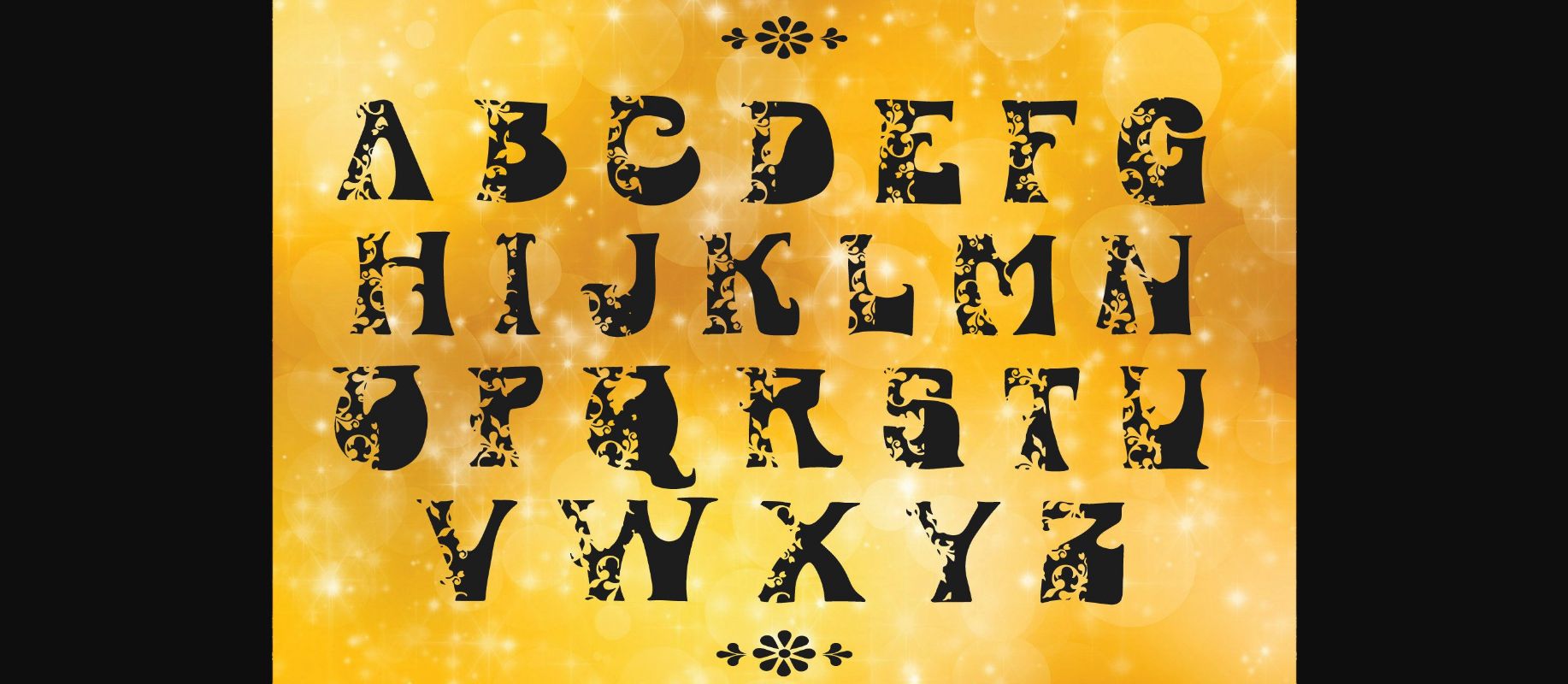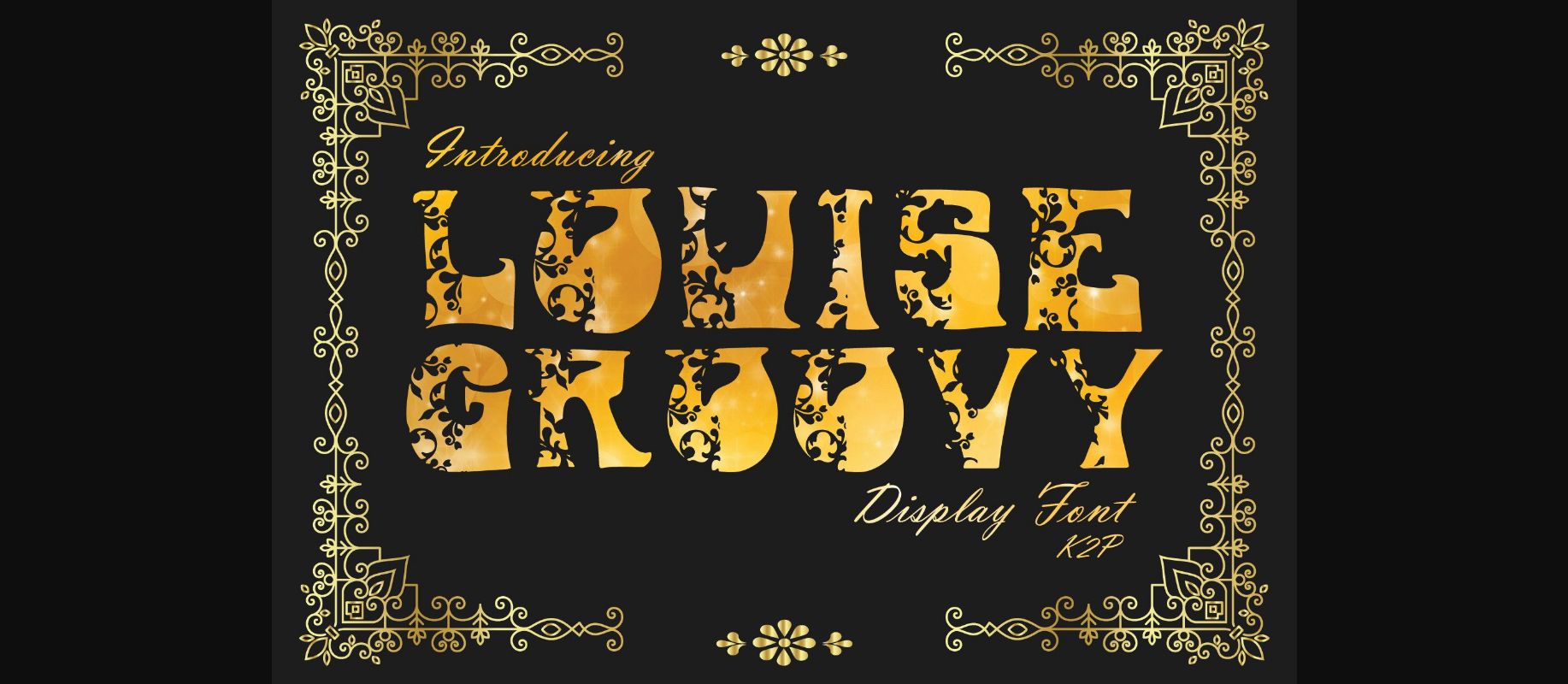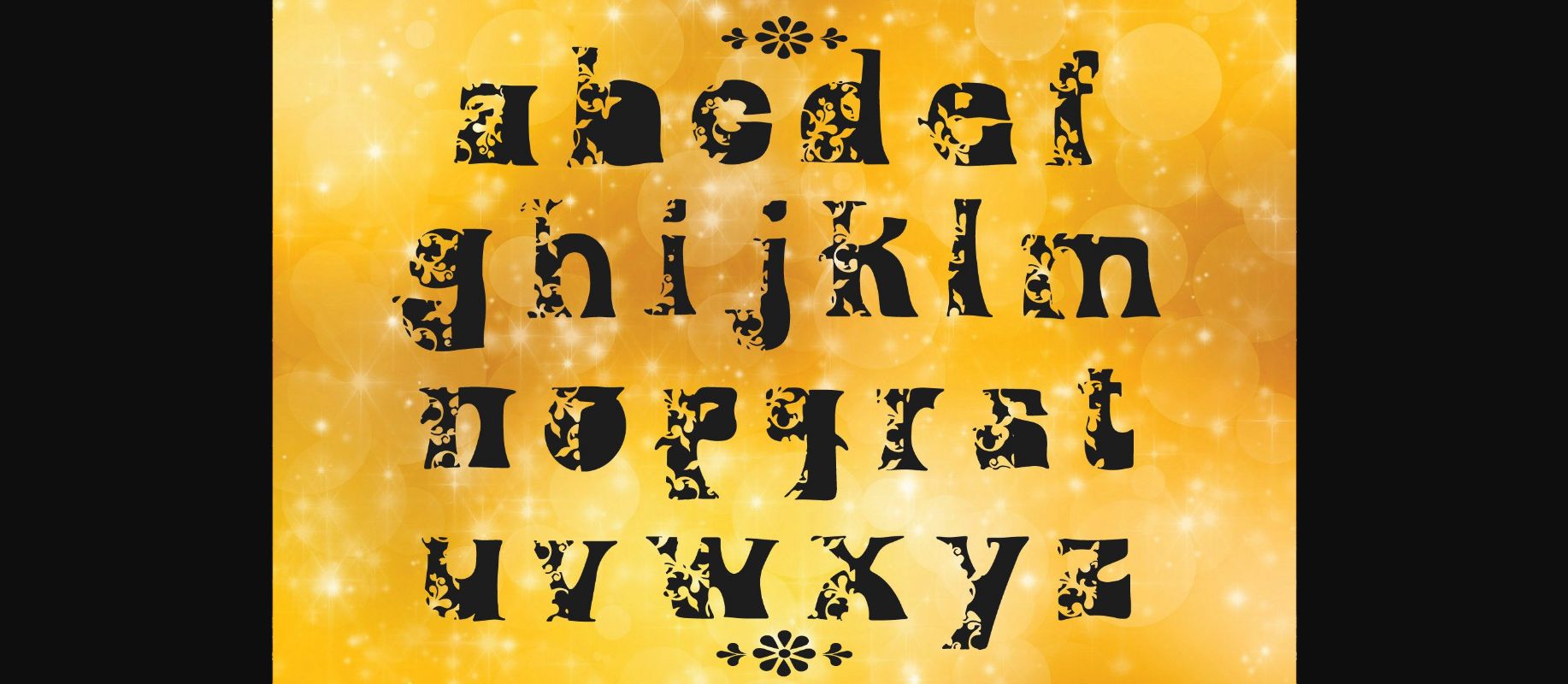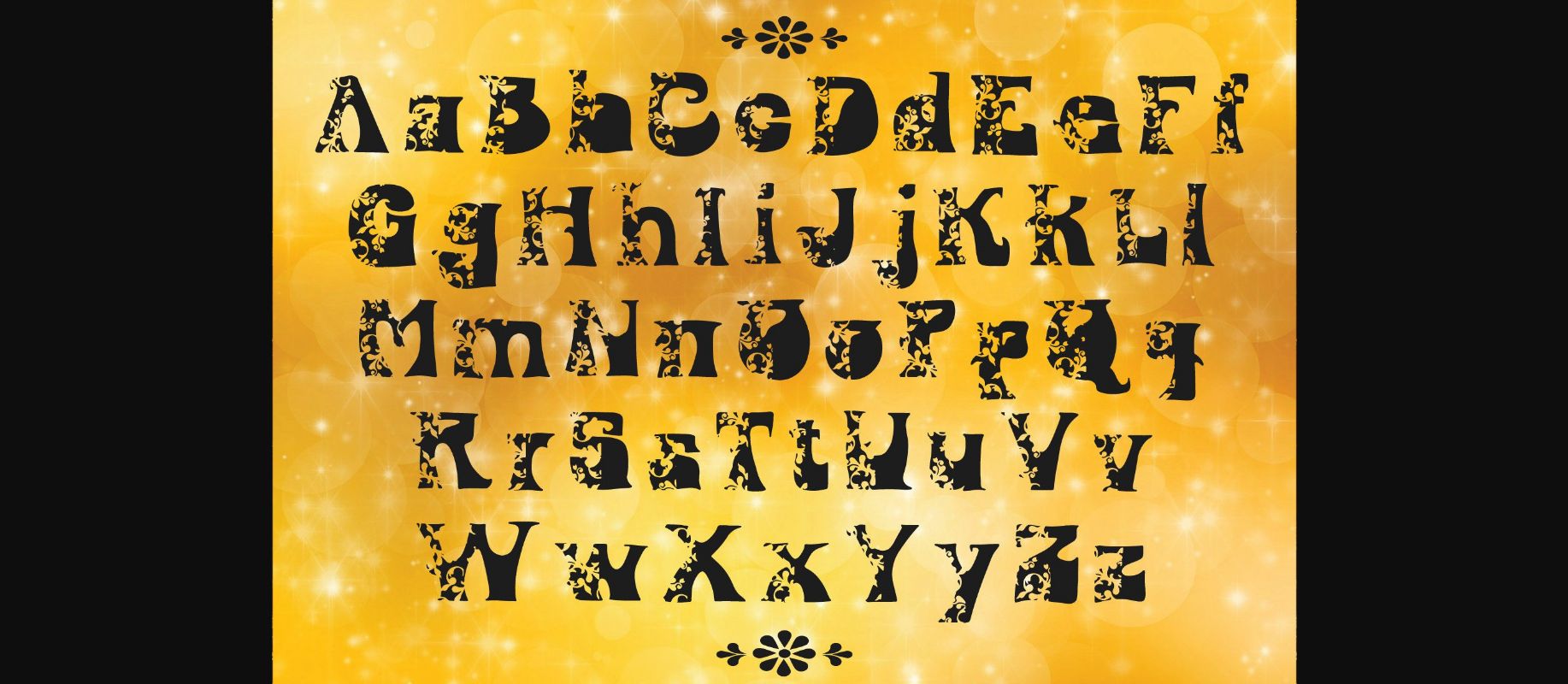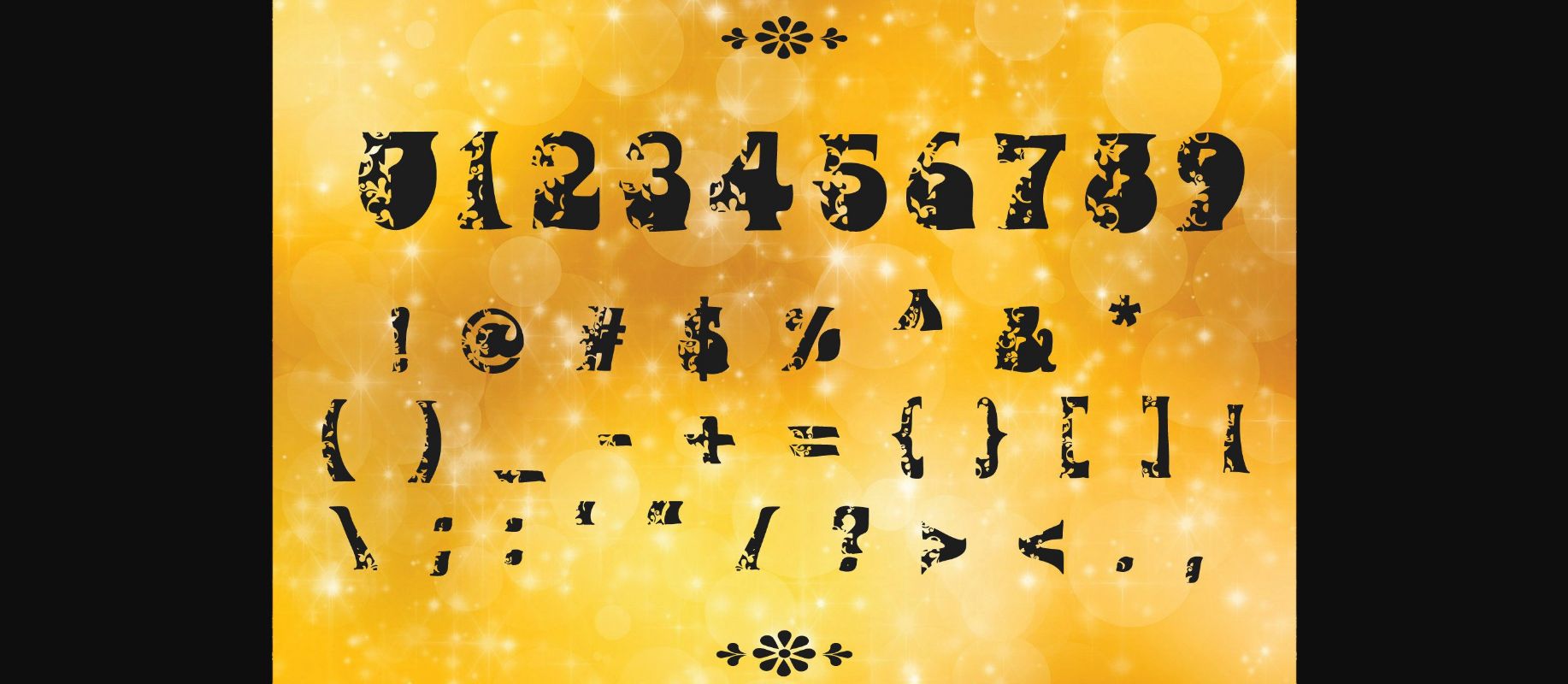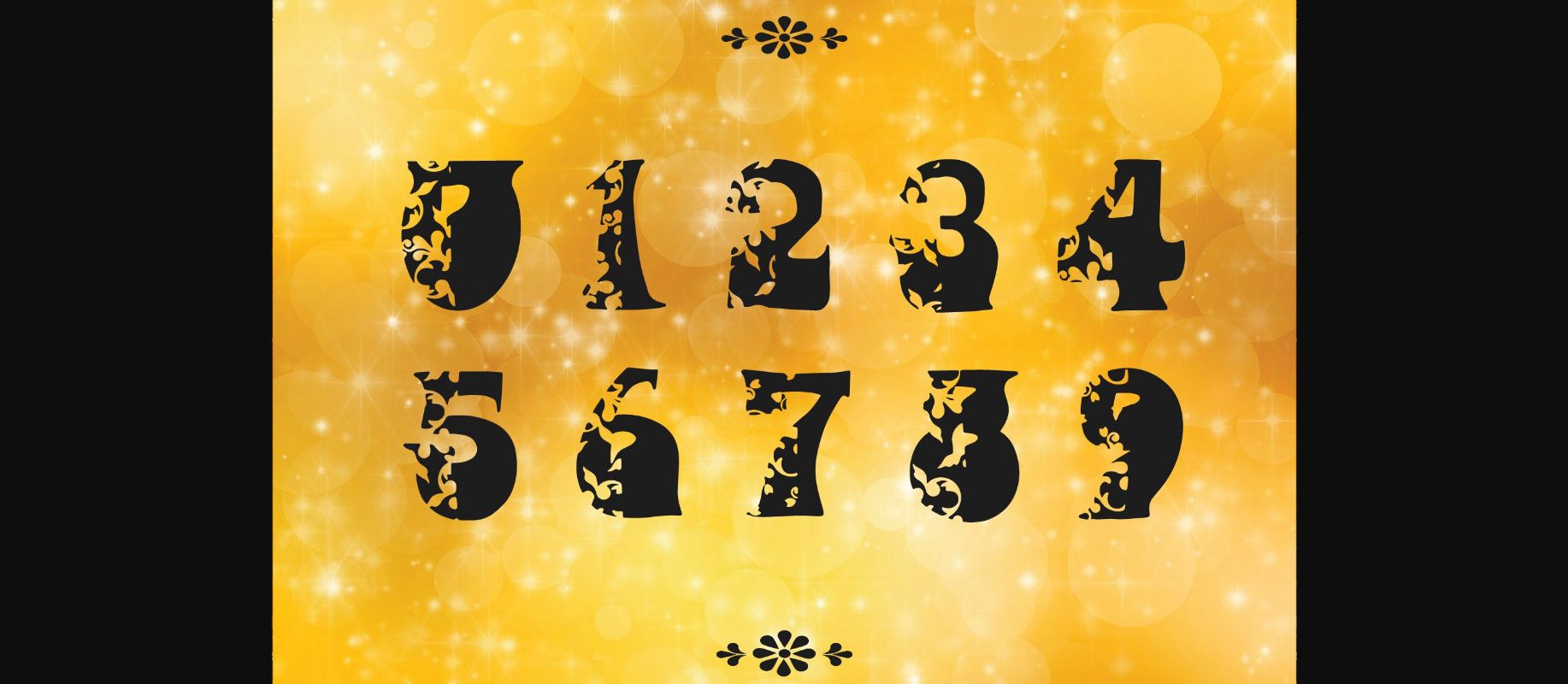
Louise Groovy Font
About Louise Groovy Font
Louise Groovy is a fun, retro, and whimsical decorative font. Fall in love with its incredibly distinct and timeless style and use it to create spectacular designs!